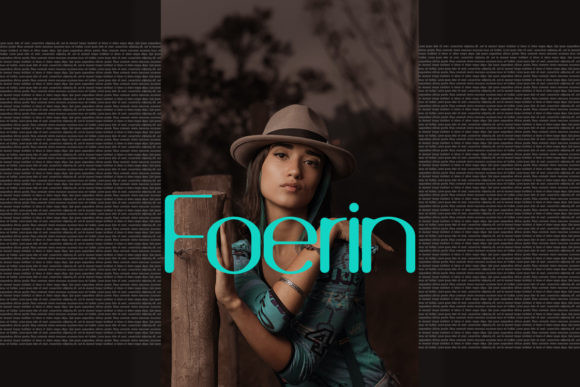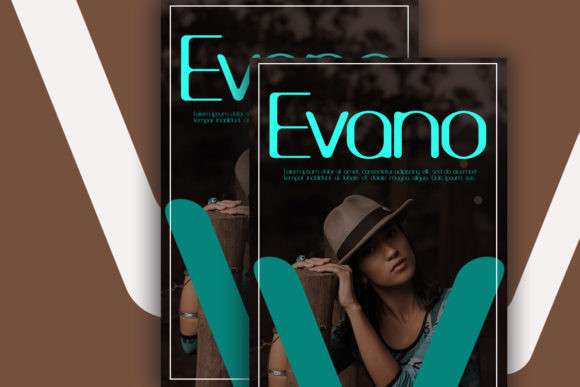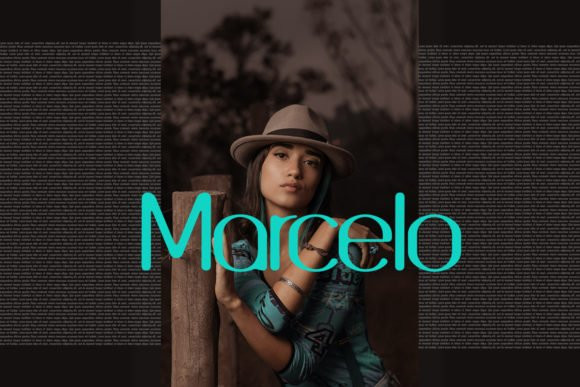
Foerin Font
Foerin is a modern display typeface, It can keep the minimalism at its level best and is a perfect choice for creative and classic typography designs. Foerin is a single weight font. It can be used for logo, branding, headlines, big text & display usage. The typeface is best suited for creating professional logos, marketing graphics and promotional designs.